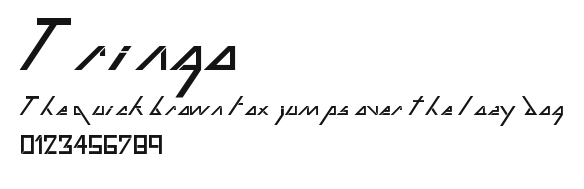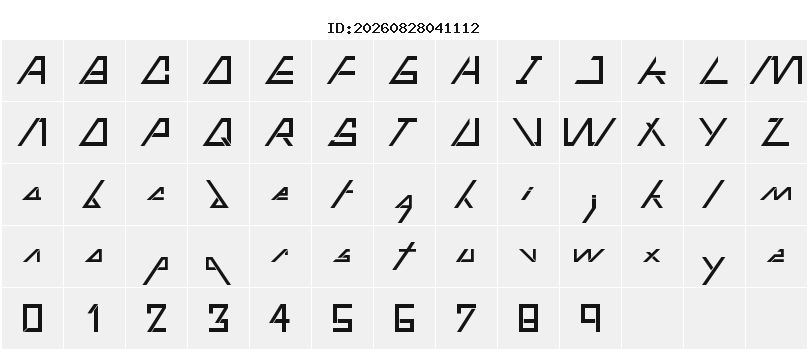
Tringo Preview
• Font Name: Tringo
• Full Font Name: Tringo
• Version: Version 1.00 March 25, 2016, initial release
About Tringo.ttf
Tringo.ttf is a modern, elegant sans-serif font designed for ultimate readability and visual harmony. Perfect for branding, headlines, web design, and print materials.